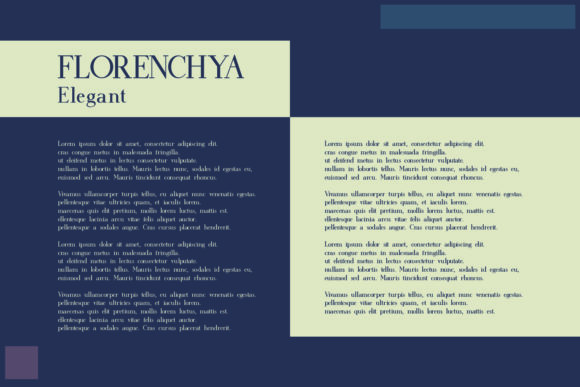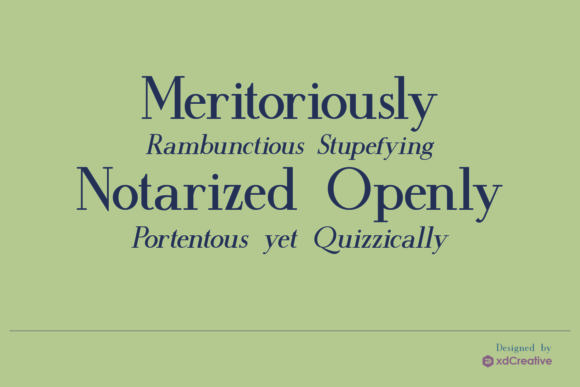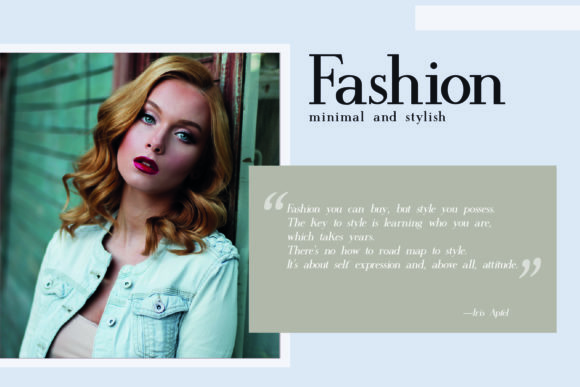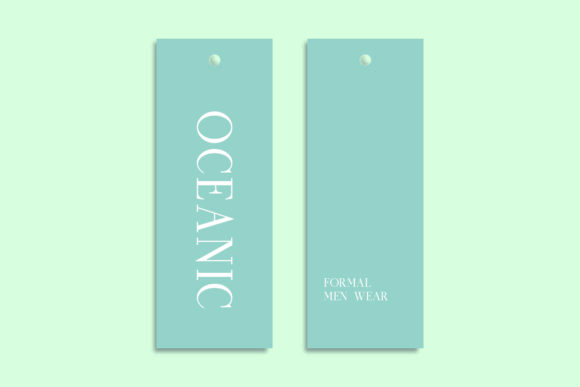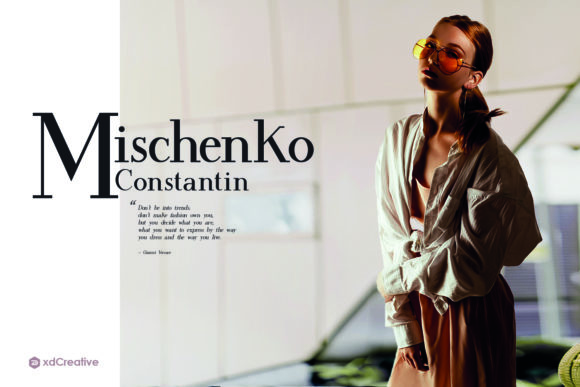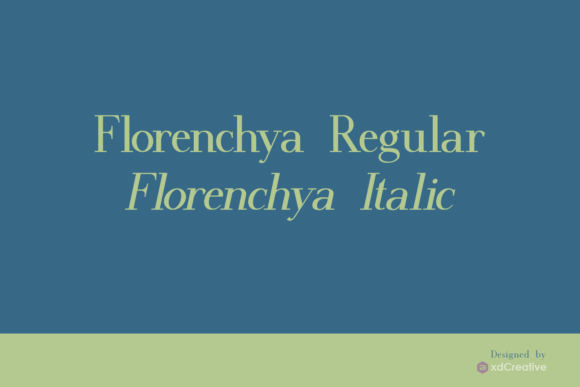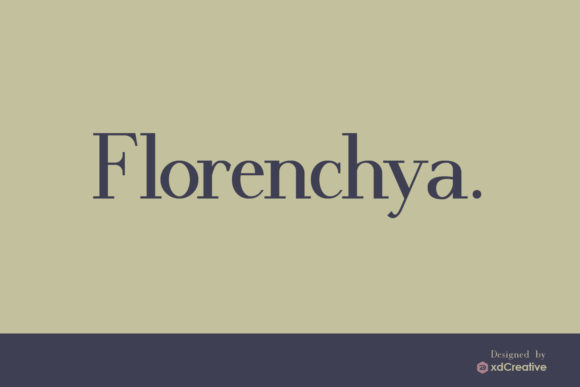
Introducing Florenchya Font: Elevate Your Designs with Authenticity and Elegance
In the world of typography, the right font can make all the difference in transforming a design from ordinary to extraordinary. For designers and crafters seeking a serif font that exudes authenticity and neatness, Florenchya Font is an exceptional choice. This versatile font is designed to complement a wide array of projects, allowing your creative ideas to shine with distinction.
The Charm of Florenchya Font
Florenchya is an authentic and neat serif font that brings a touch of sophistication to any design. Its classic yet modern appeal makes it an excellent addition to your font collection, whether you’re working on a branding project, crafting a unique logo, or creating engaging content. The font’s well-crafted serifs and balanced letterforms ensure readability and aesthetic appeal, making it suitable for a variety of applications.
One of the standout features of Florenchya Font is its incredible versatility. It can seamlessly integrate into an extensive range of projects, including:
- Branding and Logos: Create a lasting impression with a font that communicates professionalism and elegance.
- Web Design: Enhance user experience with a readable and stylish font that adapts to various screen sizes.
- Print Materials: From business cards to brochures, Florenchya ensures your print materials stand out with its unique charm.
- Packaging: Add a touch of sophistication to your product packaging and make it more appealing to your target audience.
- Social Media Graphics: Elevate your social media presence with eye-catching graphics that showcase your brand’s personality.
Why Choose Florenchya Font?
With so many fonts available, why should Florenchya be your go-to choice? Here are a few compelling reasons:
- Authenticity: Florenchya’s design is rooted in traditional serif typography, offering an authentic look that resonates with audiences.
- Neat and Readable: The font’s neat design ensures that your message is conveyed clearly, making it perfect for both headings and body text.
- Elegance: Florenchya adds a touch of elegance to any design, helping you create a sophisticated brand image.
- Adaptability: Its versatility means you can use it across various projects, making it a valuable addition to your design toolkit.
Tips for Using Florenchya Font Effectively
To maximize the impact of Florenchya Font in your designs, consider the following tips:
- Mix and Match: Combine Florenchya with other fonts to create visual interest and hierarchy in your designs.
- Play with Sizes: Use different font sizes to emphasize key messages and create a dynamic layout.
- Experiment with Colors: While Florenchya looks great in black and white, don’t be afraid to experiment with colors that match your brand’s palette.
- Pay Attention to Spacing: Ensure adequate spacing between letters and lines to maintain readability and aesthetic appeal.
Florenchya Font is more than just a serif font; it’s a design tool that can elevate your projects to new heights. Its authenticity, neatness, and elegance make it an excellent choice for designers and crafters looking to add a touch of sophistication to their work. With its versatility and readability, Florenchya is poised to become a staple in your font collection. So, add it to your creative arsenal today and watch your designs stand out like never before!